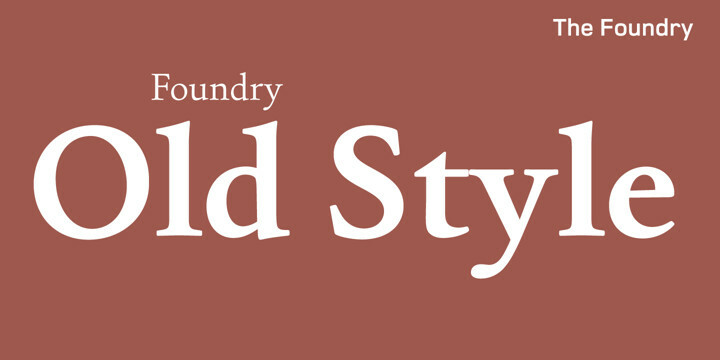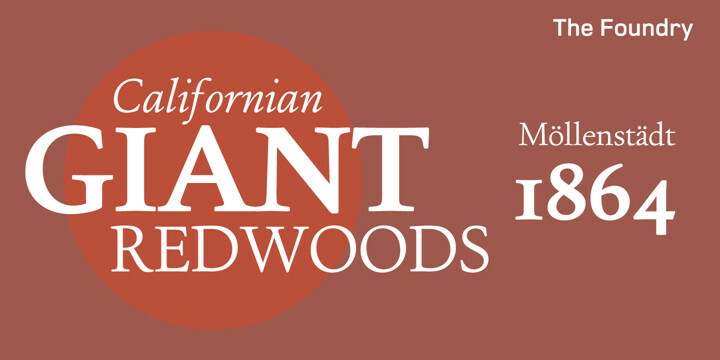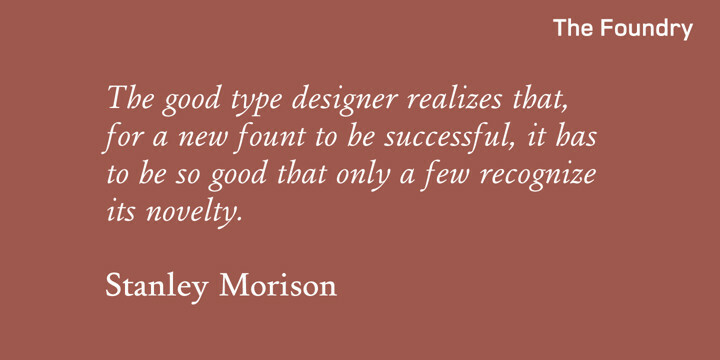
Foundry Old Style Font Family
Foundry Old Style Font FamilyFoundry Old Style was the first typeface to be released by The Foundry. Inspired by the incunabula typefaces of Nicolas Jensen, the letterforms were first created as calligraphy, with the aim of retaining the structure and free form of the pen stroke in the final drawing development. The resulting face is a contemporary translation that retains the classical tradition of the transitional roman style. Originally conceived as a text face, with a small weight range for good book work, Foundry Old Style is a versatile design that contrasts and compliments Foundry Sans.